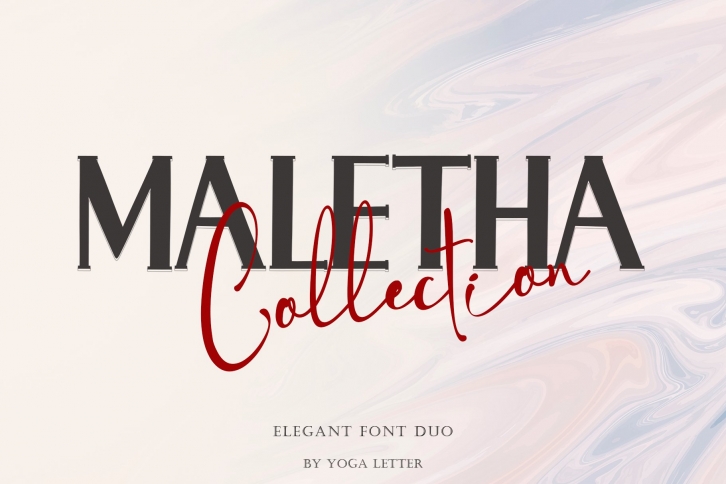
Maletha Collection is a great font that was designed by yogaletter6. Imagine the amount of combinations you can create using this font! The archive is 8.54 MB and it was released on September 28, 2021. Maletha Collection looks beautiful on wedding invitations, greeting cards, logos, posters, labels, t-shirt designs, logos, business cards and is perfect for use in ink or watercolor works, fashion, magazines, packaging and food menus, children's books and more!